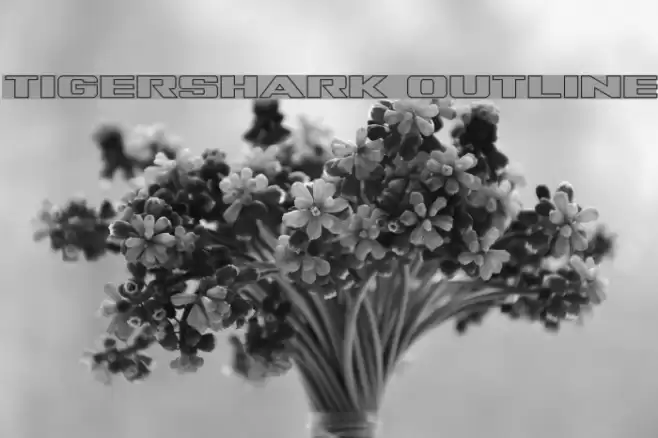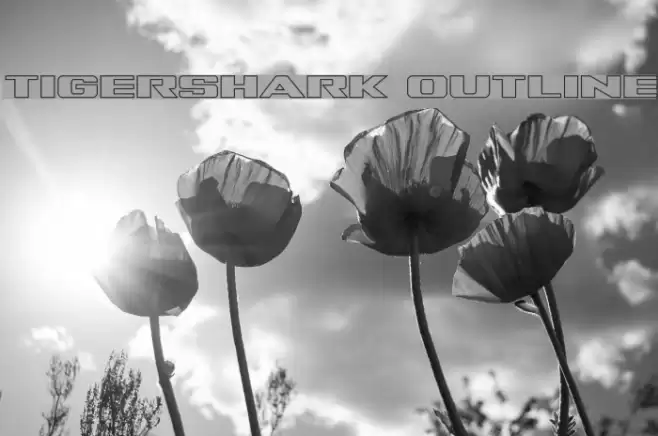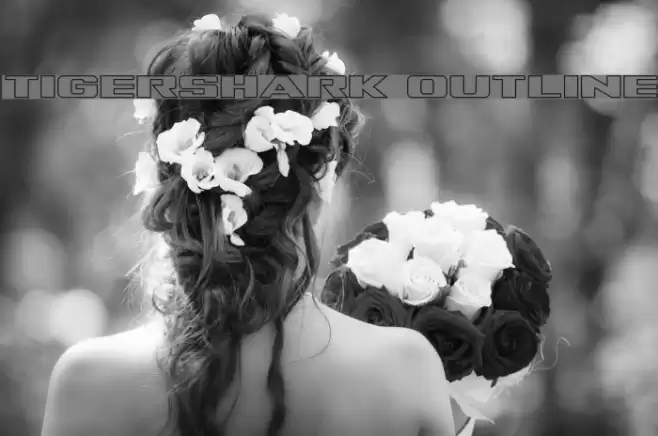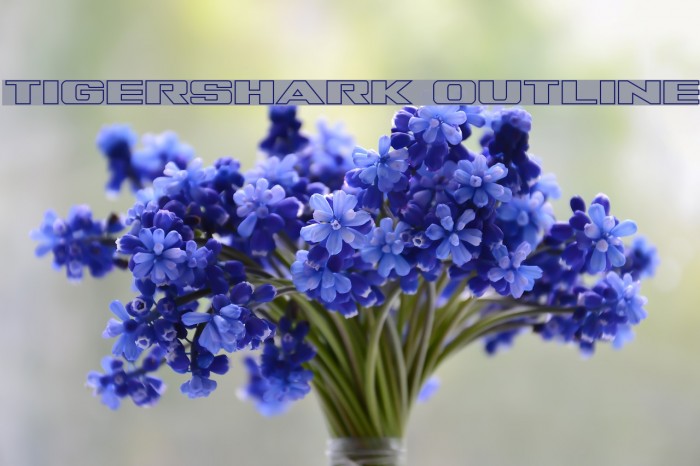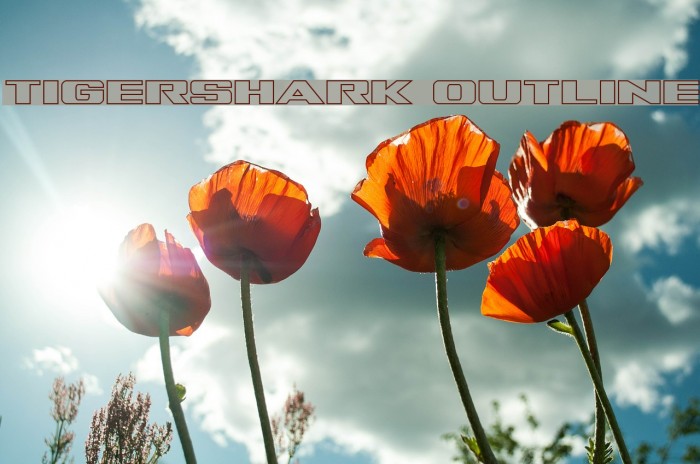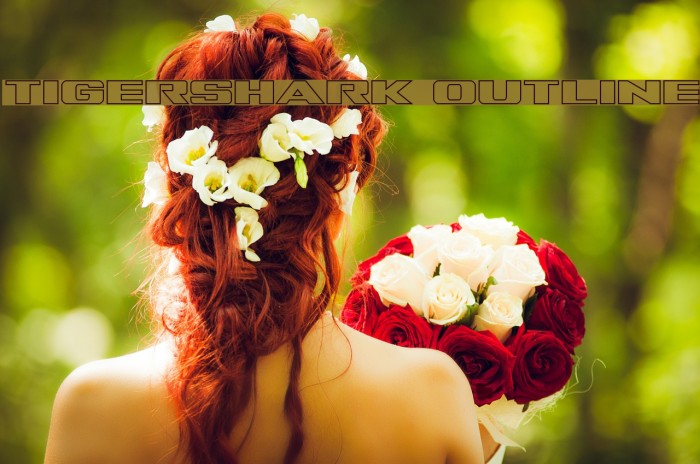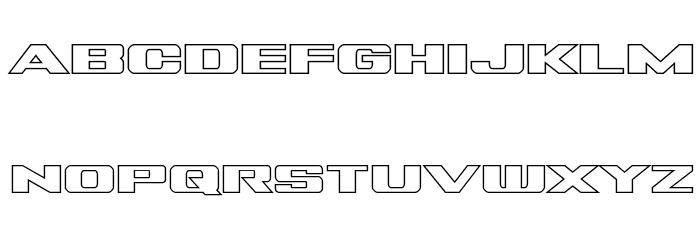
Tigershark Outline Font
Tigershark Outline Description
This font features a bold, geometric outline style that gives it a modern and futuristic appearance. The characters are constructed with clean, straight lines and sharp angles, creating a sense of precision and strength. The uppercase and lowercase letters maintain a consistent height, contributing to a uniform look. The numerals and special characters follow the same design principles, ensuring cohesion across all glyphs. This font is particularly striking due to its outlined nature, which allows for creative use of color and layering in design projects.
A bold, geometric outline font with a modern and futuristic style from Uncategorized fonts.
- Proposed Projects: Ideal for branding, posters, headlines, and digital artwork where a strong, modern aesthetic is desired.